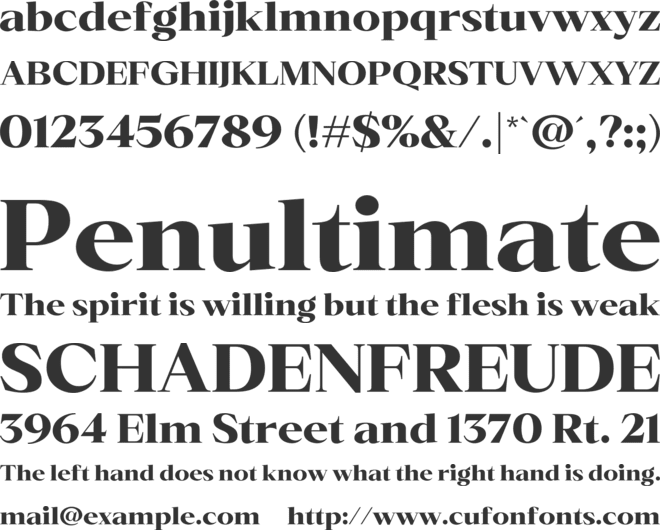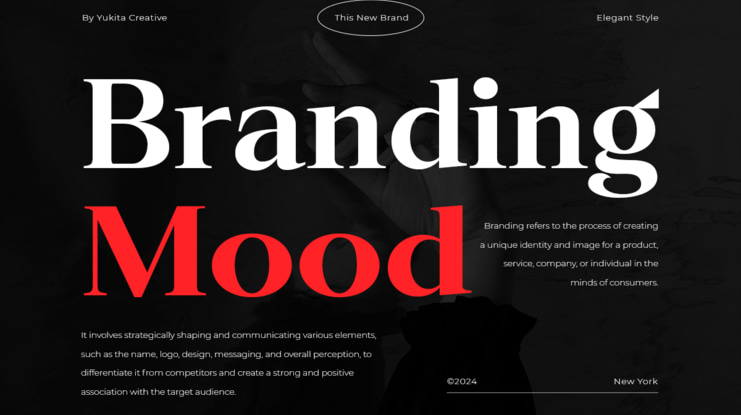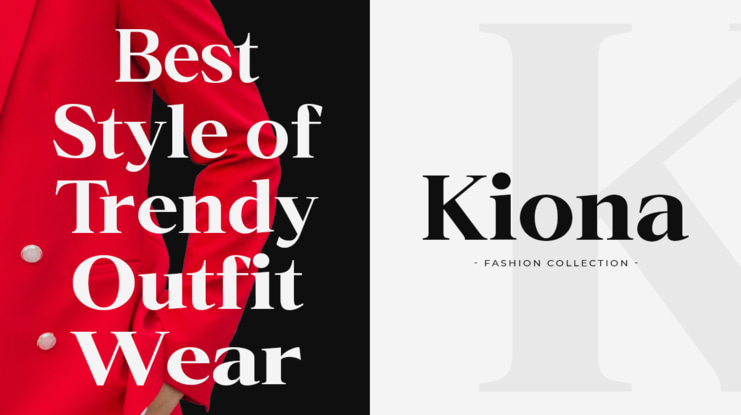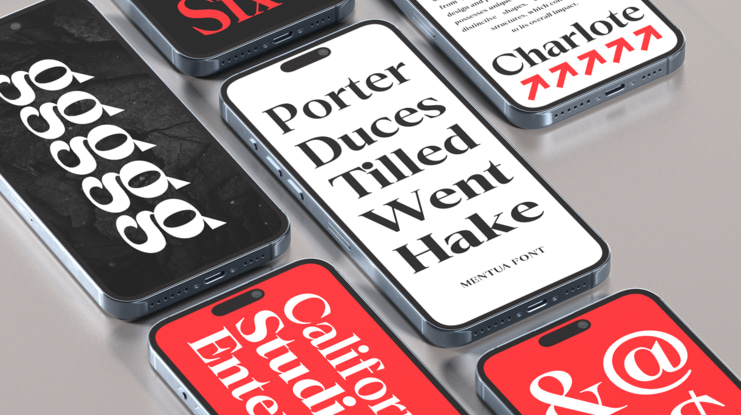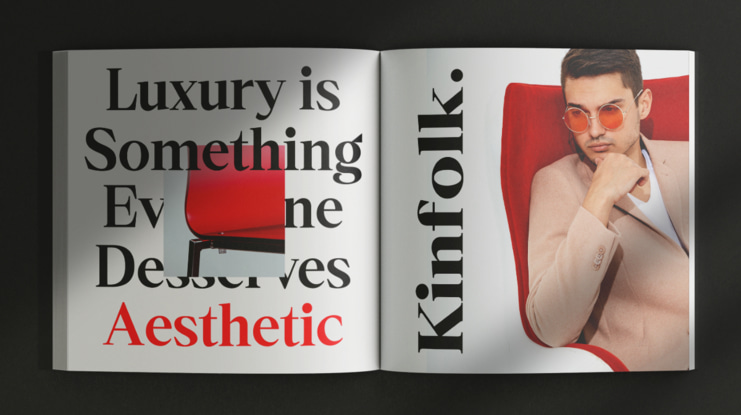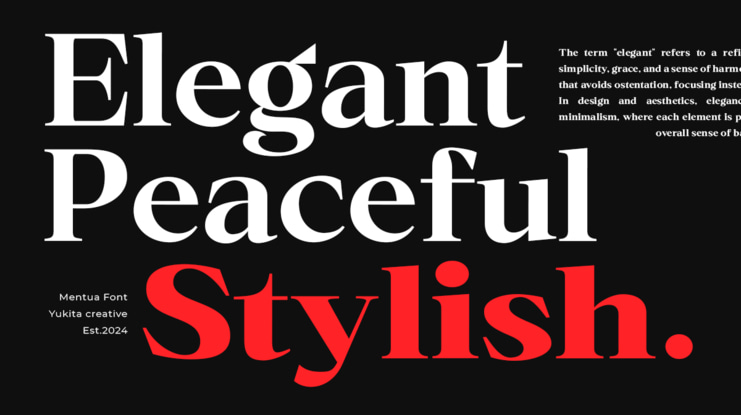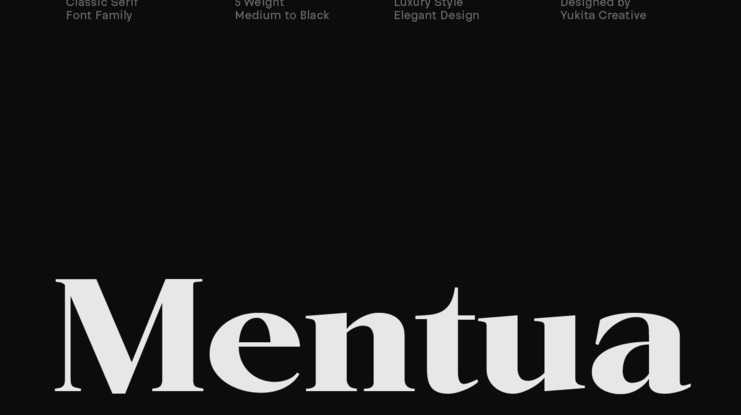
Mentua Font Family
Mentua Serif is a font that blends classic and modern styles, bringing an elegant and professional touch to any design project. With bold letterforms and balanced proportions, Mentua Serif is suitable for various purposes, from print designs like magazines and books to digital media such as websites and branding.
This font features smooth serifs and detailed elements that enrich the appearance of text, making it an ideal choice for headlines, logos, and long-form text that requires excellent readability. Available in multiple styles and weights, Mentua Serif offers flexibility and variety in your designs, allowing you to express creativity more freely.
Key Features: Elegant and classic serif style Suitable for a wide range of design projects Multiple weights and styles available High readability for long-form text
Mentua Serif is a perfect choice for designers seeking a font with classic elegance and modern capabilities to enhance their visual messaging.